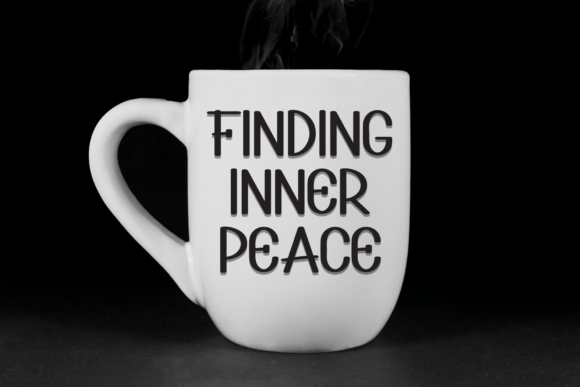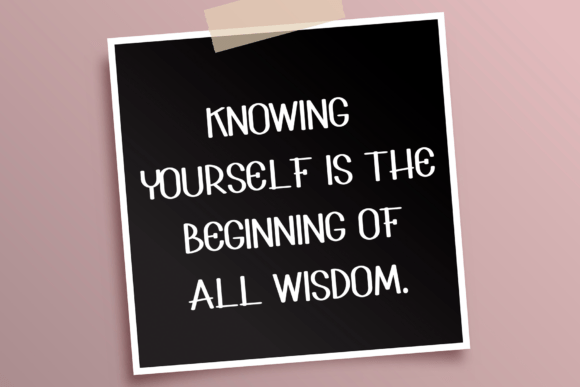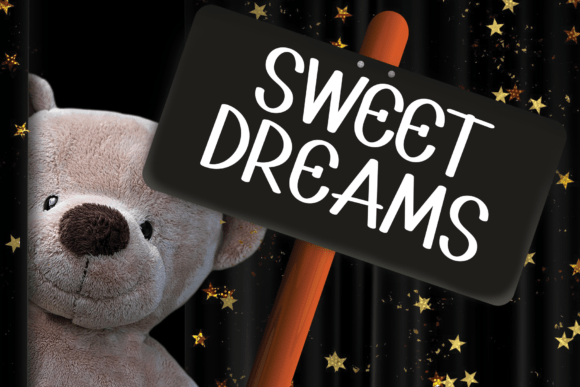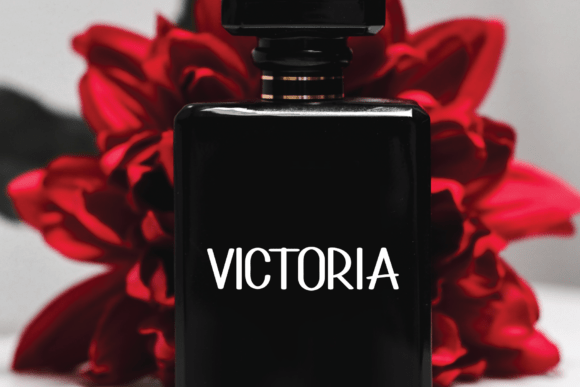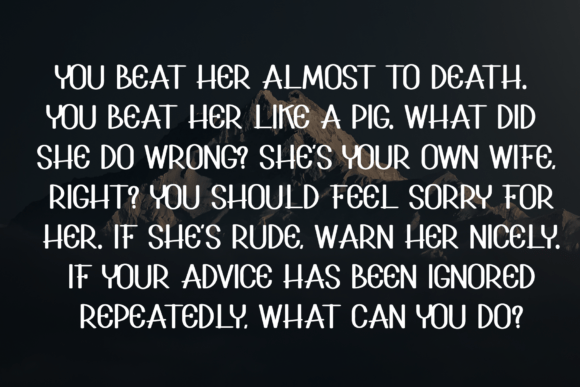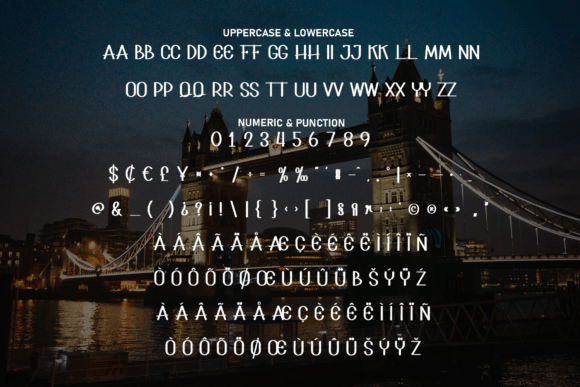
Introduction to Night London Font Font
Fonts play a crucial role in design, and the Night London Font font is a typeface that brings both character and versatility to any project. Whether you’re working on a branding project, a website, or a print design, the Night London Font font offers a unique style that can elevate your work.
The Night London Font font is more than just a typeface – it’s a design tool that helps you communicate your message with style and clarity. Its unique character set and versatile design make it suitable for a wide range of applications, from elegant invitations to bold headlines.
With its carefully crafted letterforms and balanced proportions, the Night London Font font ensures readability and visual appeal across all mediums.
What makes Night London Font font special?
The Night London Font font stands out with its unique design, exceptional readability, and versatility across various design applications.